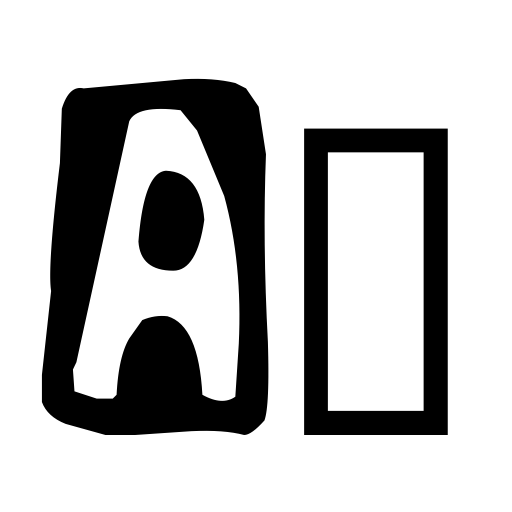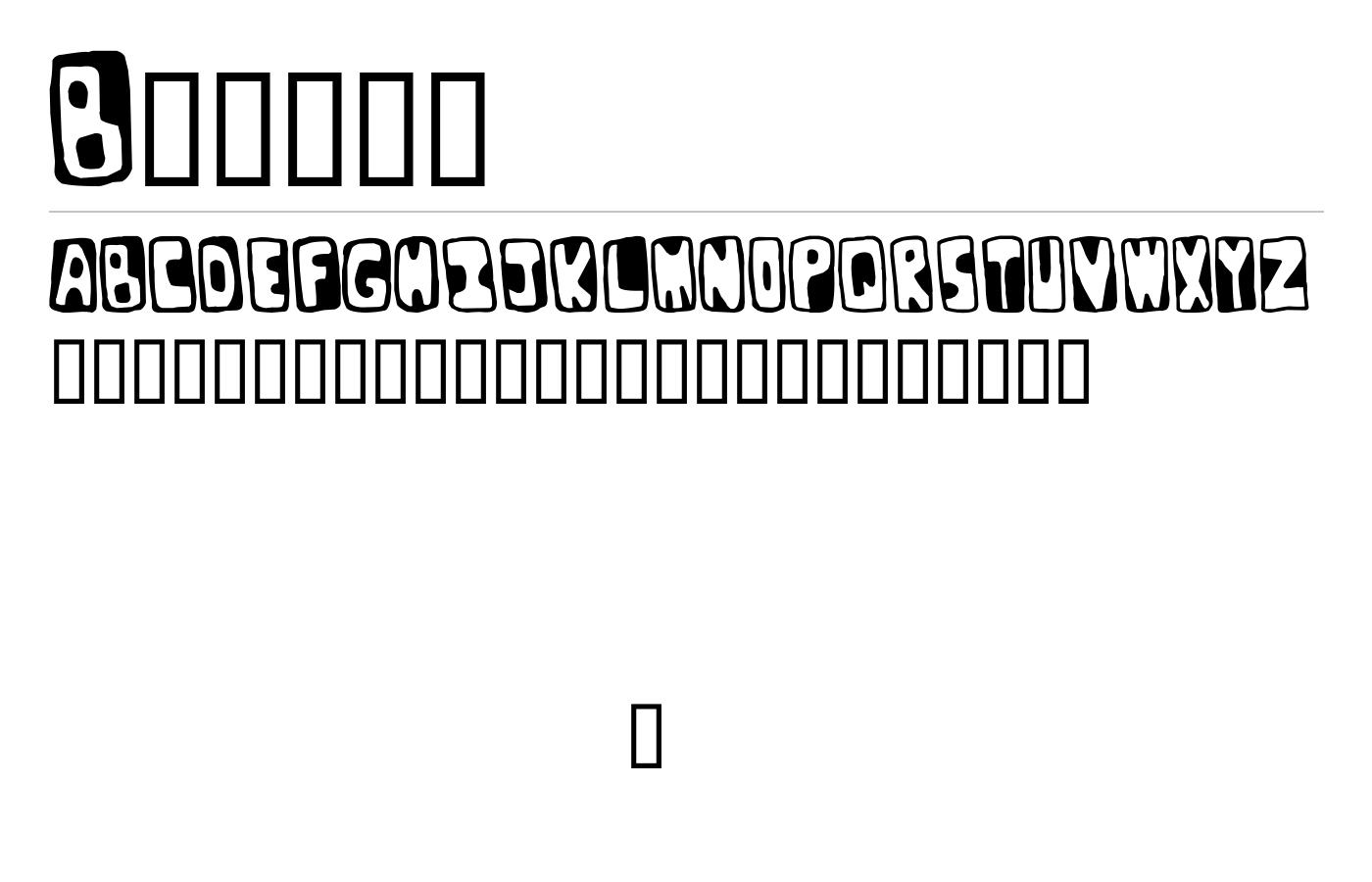
Bunker is a playful and bold display font characterized by its chunky, irregular block shapes and whimsical, slightly distressed edges. Its all-uppercase design with quirky letterforms emanates a fun, casual energy that works well for eye-catching headlines, posters, and branding aimed at a youthful or creative audience. Best suited for informal, energetic projects, Bunker adds a touch of personality and charm wherever a standout, unconventional look is desired.
Bunker Font
About Bunker Font